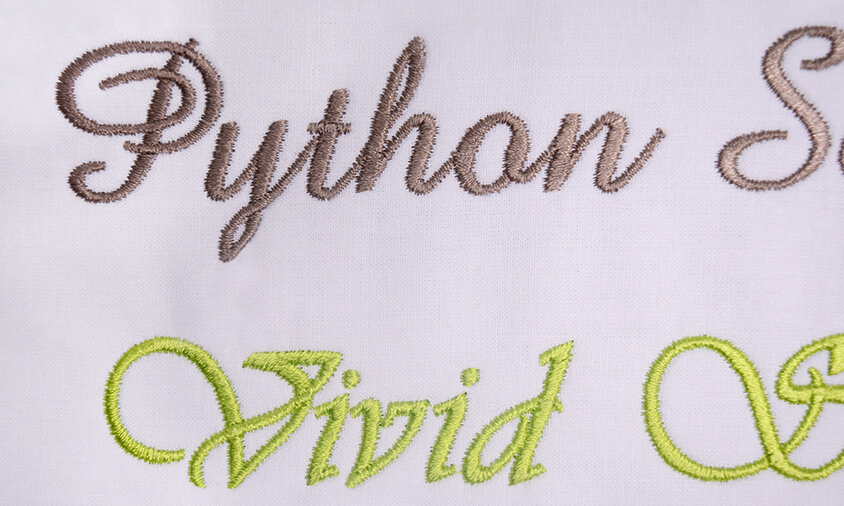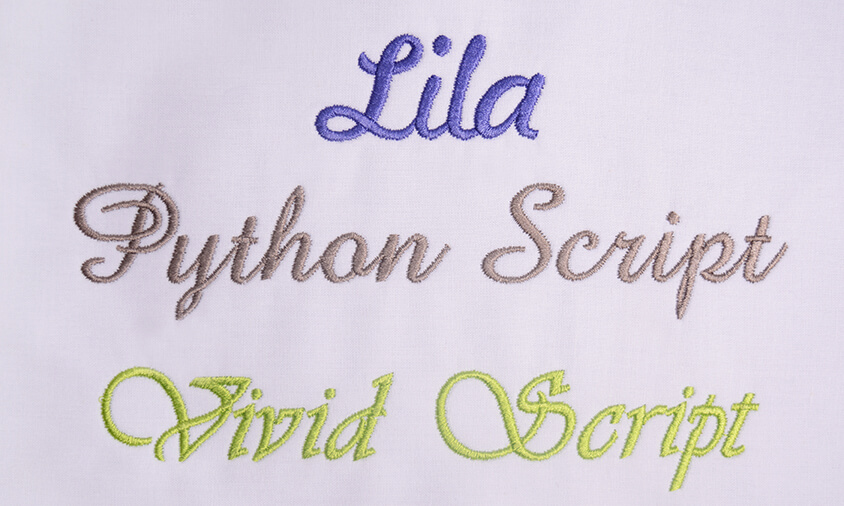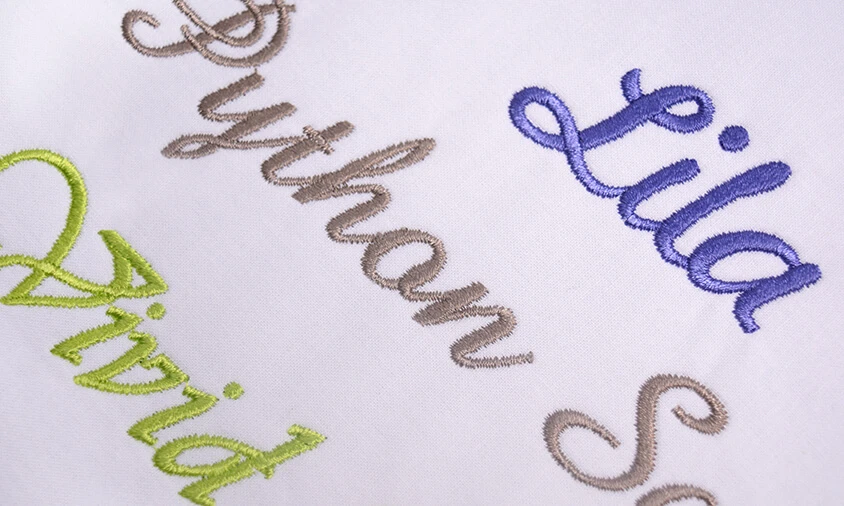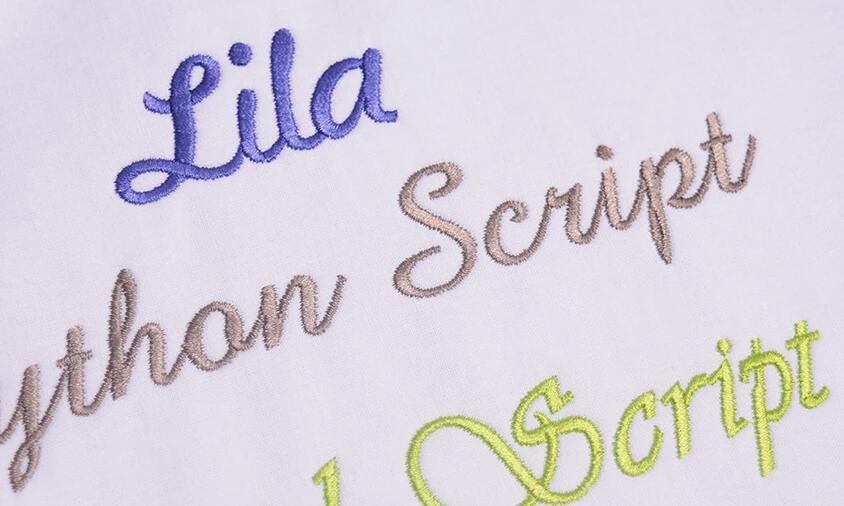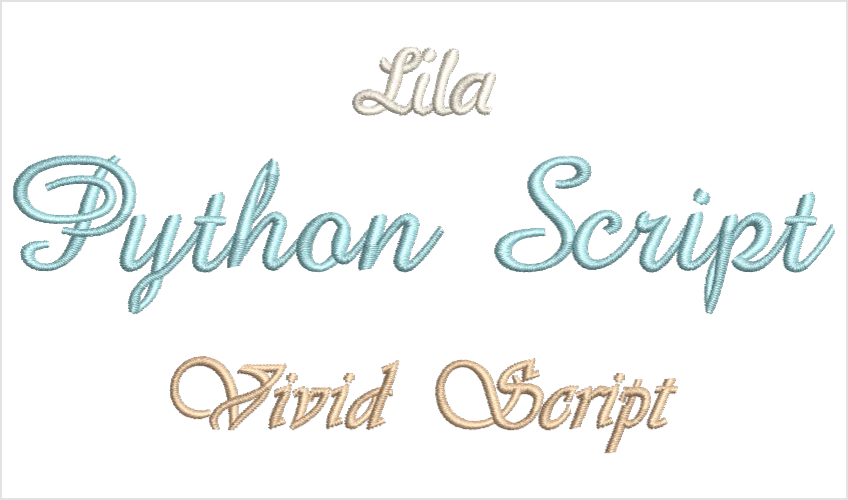
Font Pack #10 – Script #2
Small scripts! That’s what the Script #2 font collection is all about, providing a variety of script fonts that can be stitched at ½” and still be readable.
Lila
Short height with capital letters that are a bit funky. You’ll enjoy using this font that is a little on the heavy side and still readable.
Python Script
A little on the vintage side, but quite modern, this font is great to use when you want a slight calligraphy look.
Vivid Script
Bright, bouncy and glowing is how we describe this font. Looks good at ½”–2”.